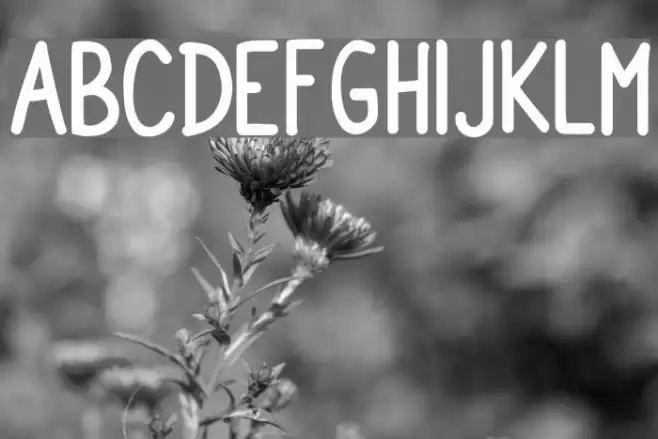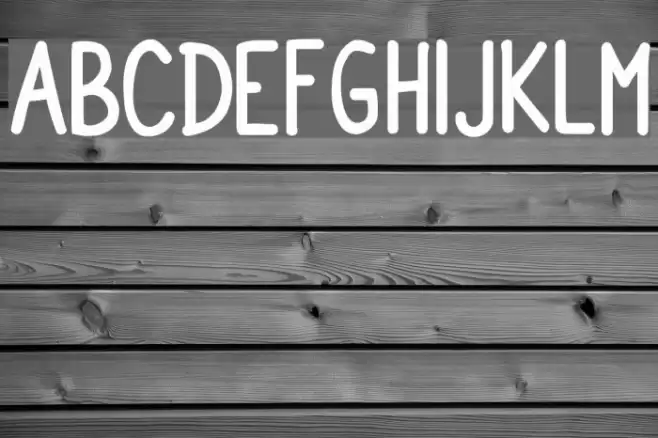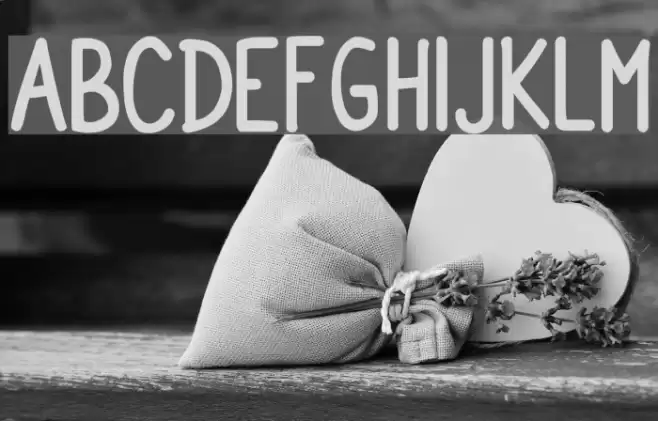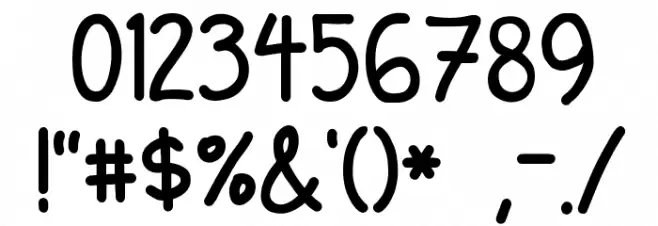
Milk Run Font
Milk Run Description
This playful and rounded font exudes a friendly and approachable vibe. The characters are bold with a slightly irregular shape, giving them a hand-drawn appearance. The strokes are consistent in width, contributing to a uniform look across all characters. The uppercase and lowercase letters are well-proportioned, with a slight tilt that adds to the casual feel. Numbers and special characters maintain the same playful style, making them easily readable and visually appealing. This font is perfect for projects that require a touch of whimsy and creativity, such as children's books, playful branding, or casual invitations.
A playful, rounded font with a hand-drawn, friendly appearance from Handwritten fonts.
- Proposed Projects: Ideal for children's books, playful branding, casual invitations, and creative projects.
- Overall Style: Playful
- Use Case: Headlines, Logos, Casual Text